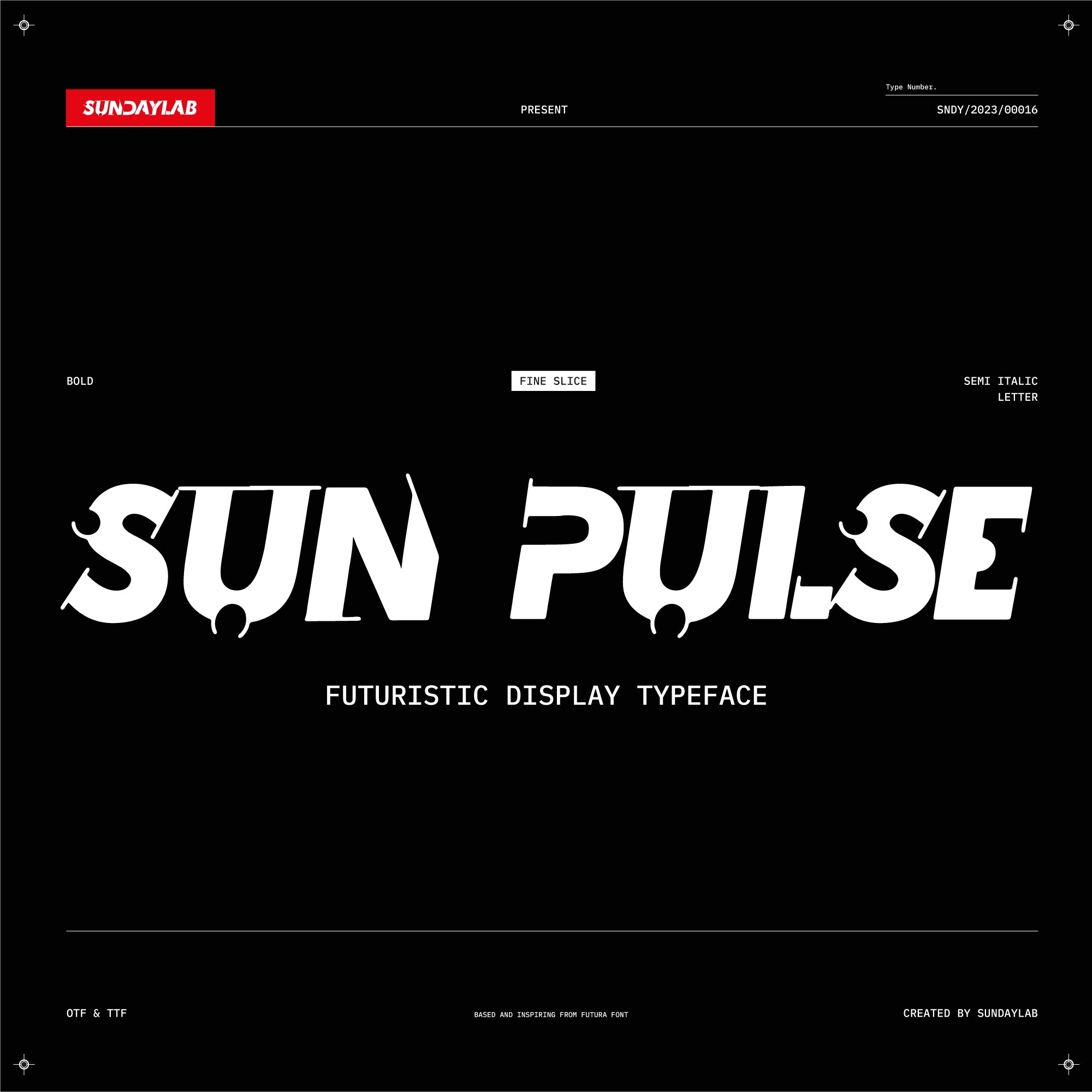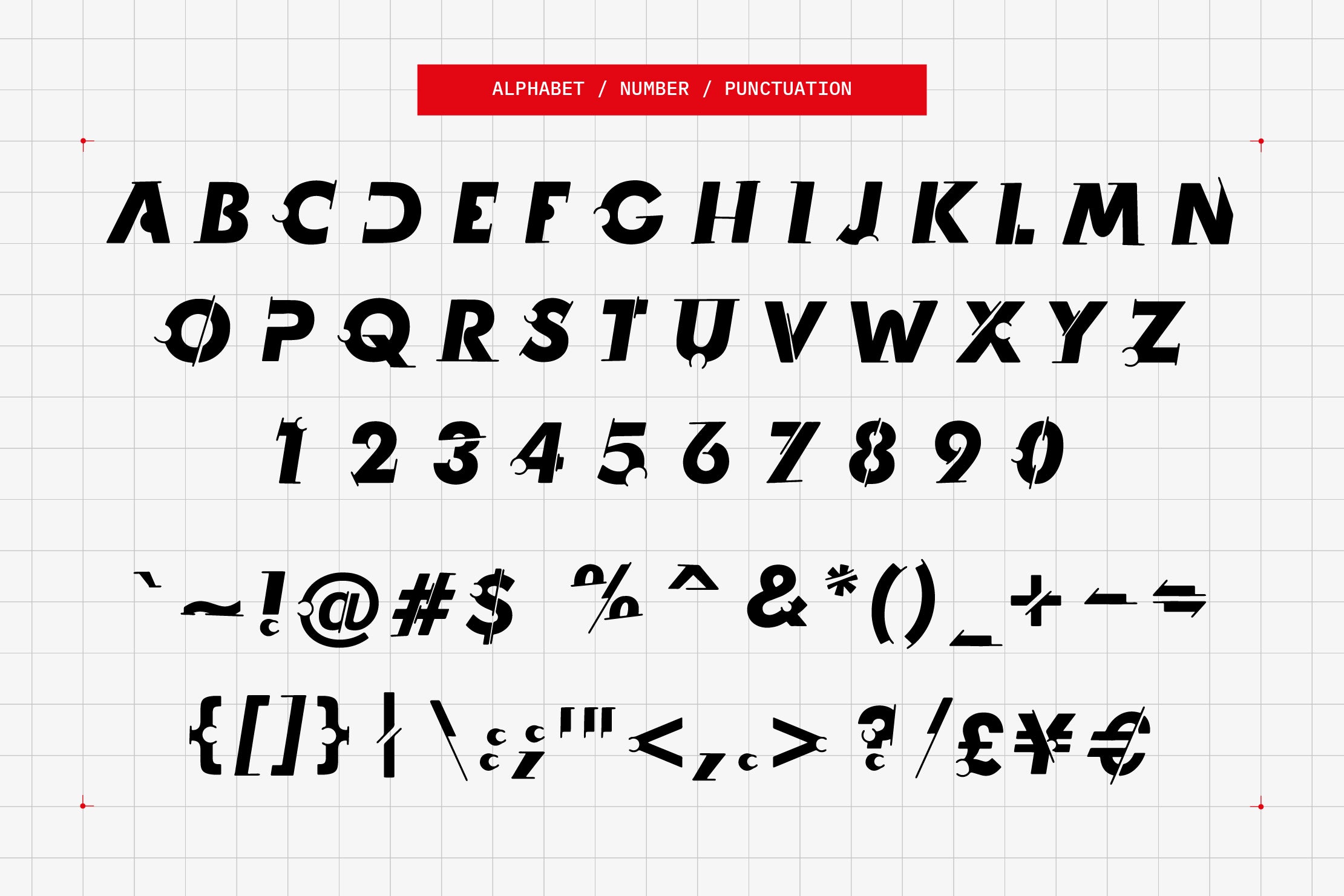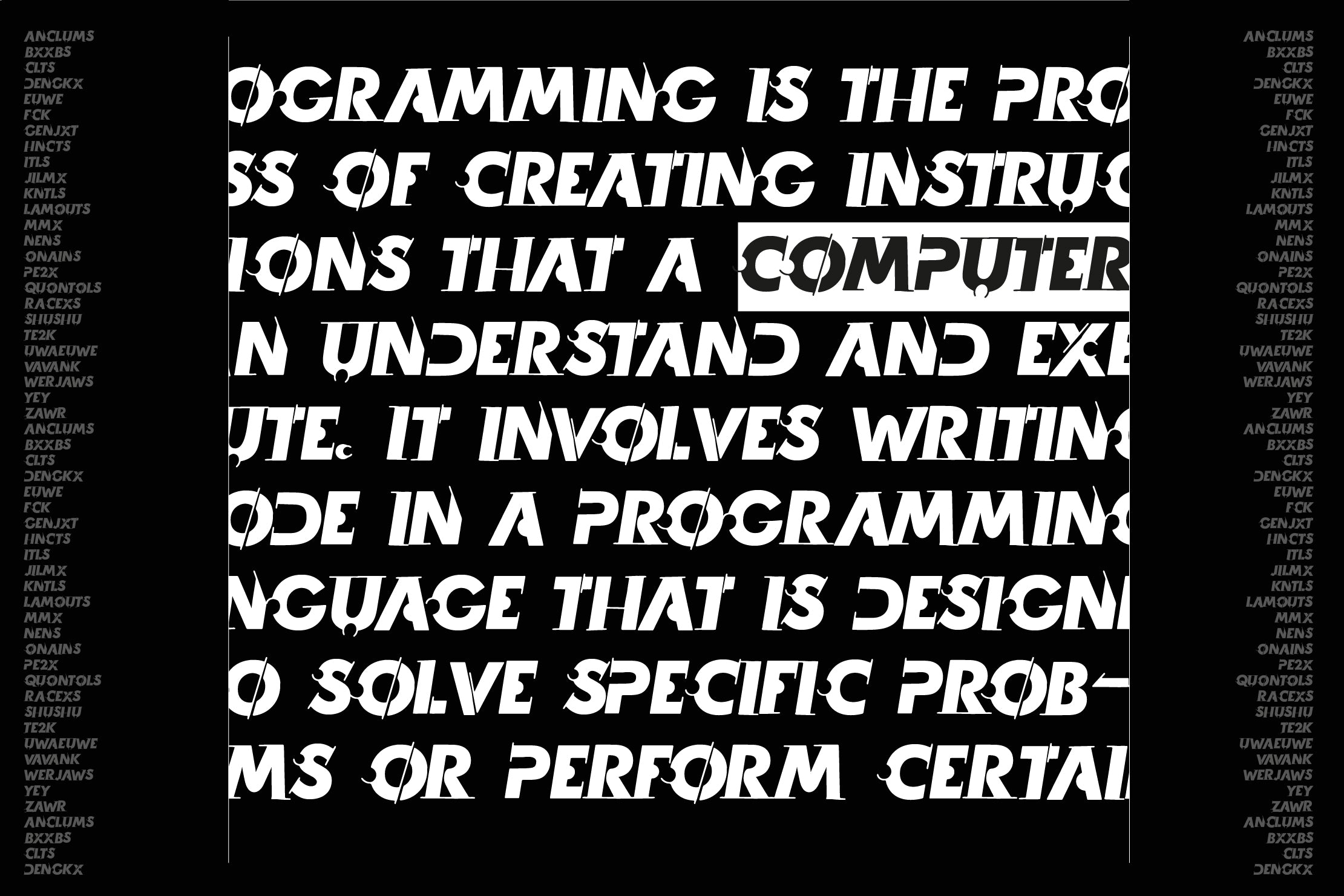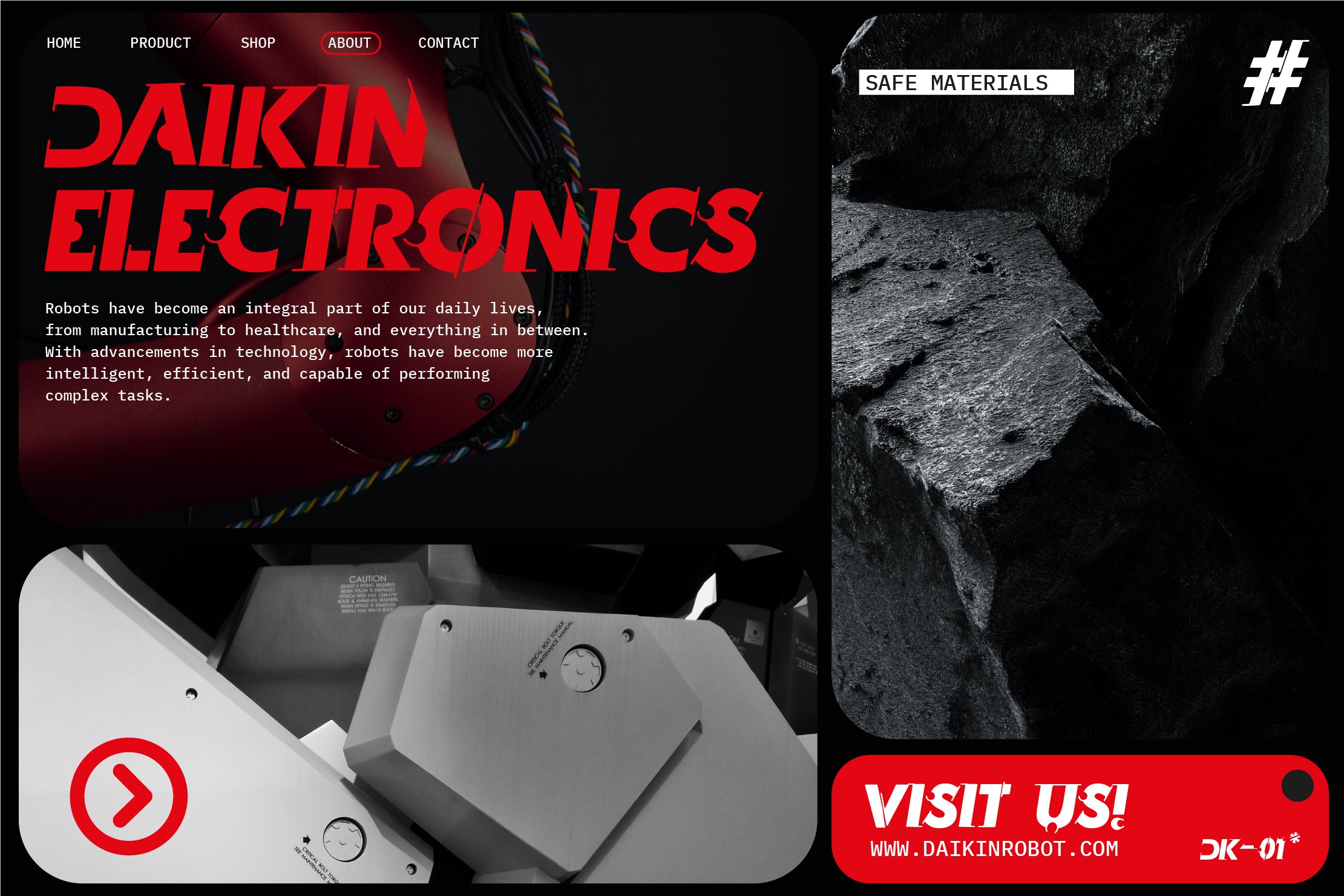
Sunpulse Futuristic Typeface
Sunpulse is a bold and experimental futuristic display typeface designed to bring a strong visual impact to modern and unconventional designs. Built with sharp geometric structures, high-contrast strokes, and a distinctive semi-italic character, Sunpulse combines a futuristic aesthetic with an edgy editorial feel.
Each letterform features unique sliced details, unexpected cuts, and dynamic shapes that create a sense of movement and technological sophistication. The unconventional construction gives the typeface a distinctive personality, making it instantly recognizable when used at large display sizes.
Sunpulse is designed primarily for headlines, titles, logos, posters, branding, editorial layouts, album covers, fashion graphics, and other visual projects where typography needs to become the main element of the composition. Its bold appearance works especially well when paired with clean layouts, strong contrast, monochromatic compositions, or futuristic graphic elements.
Whether you're creating a sci-fi poster, experimental branding, music artwork, fashion campaign, technology identity, gaming graphic, magazine cover, or contemporary advertising design, Sunpulse adds a bold futuristic presence without requiring additional decorative elements.
The typeface includes uppercase letters, numbers, and a wide range of punctuation and symbols, giving you enough flexibility to create complete display compositions and expressive typographic artwork.
Sunpulse is a futuristic display typeface featuring geometric structures, high-contrast strokes, and semi-italic letterforms with sliced details. It includes uppercase letters, numbers, and punctuation/symbols, provided as .otf and .ttf files with a Read Me document.